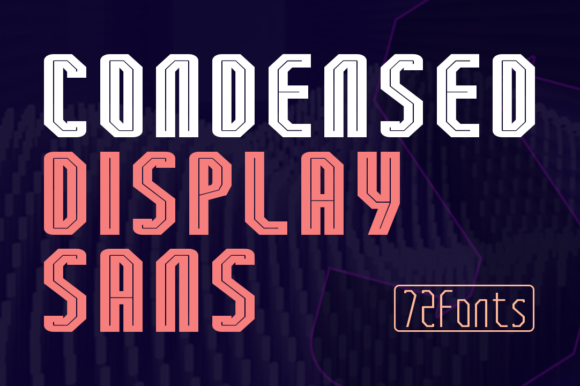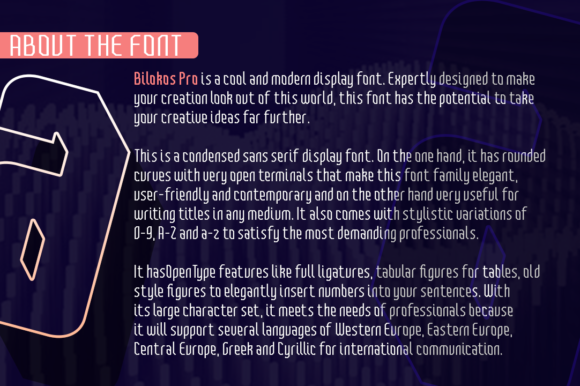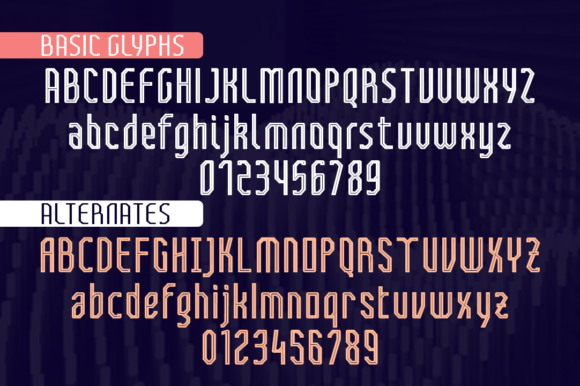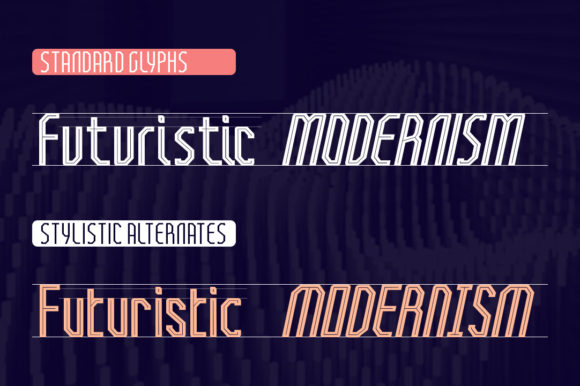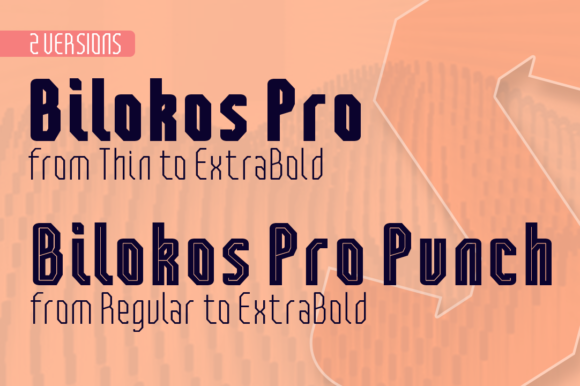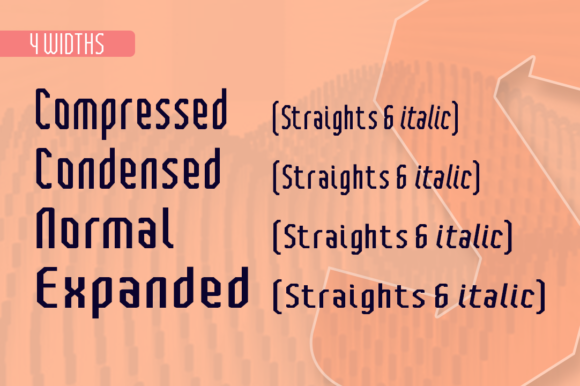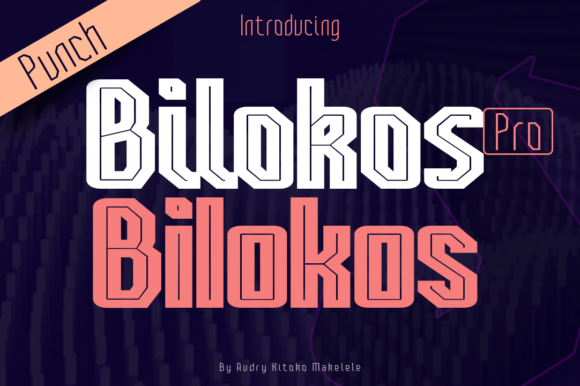
Bilokos Font: A Bold and Cool Display Font for Your Creative Projects
Bilokos is a bold and incredibly cool display font that can elevate any creative project to new heights. Its unique design and versatility make it an excellent addition to any font library, allowing designers and crafters to add a touch of personality and style to their work. In this article, we’ll explore the features and benefits of Bilokos font, and how it can enhance your designs and creations.
The Features of Bilokos Font
Bilokos font is a display font that boasts a bold and eye-catching design. Its letters are carefully crafted to make a statement, with clean lines, sharp edges, and a confident swagger. The font’s unique design makes it perfect for headlines, titles, and other display text, where you want to grab the reader’s attention and make a lasting impression.
One of the standout features of Bilokos font is its versatility. It can be used for a wide range of projects, from branding and advertising to packaging and digital media. Whether you’re designing a logo, creating a social media graphic, or crafting a website, Bilokos font can add a touch of style and sophistication to your work.
The Benefits of Using Bilokos Font
So, why should you choose Bilokos font for your creative projects? Here are just a few benefits of using this amazing font:
- Instant Impact: Bilokos font is designed to make a statement. Its bold and eye-catching design ensures that your text will grab the reader’s attention and make a lasting impression.
- Versatility: Bilokos font can be used for a wide range of projects, from print to digital media. Its versatility makes it an excellent addition to any font library.
- Easy to Read: Despite its bold design, Bilokos font is easy to read, even at small sizes. This makes it perfect for use in a variety of contexts, from headlines to body text.
- Unique Style: Bilokos font has a unique style that sets it apart from other fonts. Its distinctive design ensures that your work will stand out from the crowd and leave a lasting impression.
How to Use Bilokos Font in Your Designs
Using Bilokos font in your designs is easy. Here are a few tips to get you started:
- Pair it with Other Fonts: Bilokos font pairs well with other fonts, including serif and sans-serif fonts. Experiment with different font combinations to find the perfect look for your project.
- Use it for Headlines: Bilokos font is perfect for headlines and titles. Use it to grab the reader’s attention and make a lasting impression.
- Experiment with Colors: Bilokos font looks great in a variety of colors. Experiment with different colors and gradients to find the perfect look for your project.
Who Can Benefit from Using Bilokos Font?
Bilokos font is perfect for a wide range of designers and crafters, including:
- Graphic Designers: Bilokos font is perfect for graphic designers who want to add a touch of style and sophistication to their work.
- Web Designers: Bilokos font can be used to create stunning website headers, titles, and other display text.
- Digital Artists: Bilokos font is perfect for digital artists who want to add a touch of personality and style to their work.
- Crafters: Bilokos font can be used for a variety of crafting projects, from card making to scrapbooking.
Bilokos font is a bold and incredibly cool display font that can elevate any creative project to new heights. Its unique design, versatility, and ease of use make it an excellent addition to any font library. Whether you’re a graphic designer, web designer, digital artist, or crafter, Bilokos font is sure to become a favorite in your collection. So why wait? Download Bilokos font today and start creating stunning designs that will leave a lasting impression!